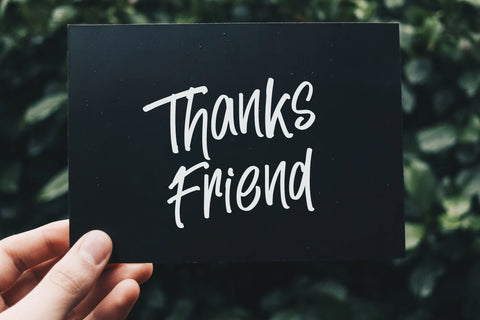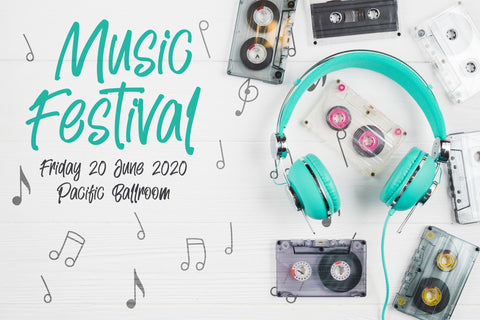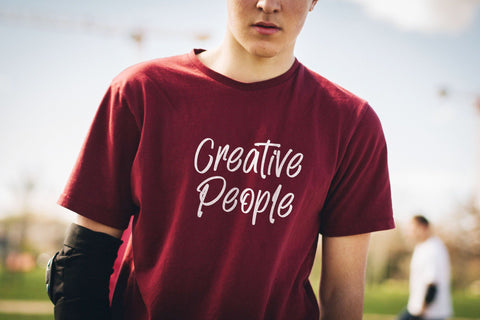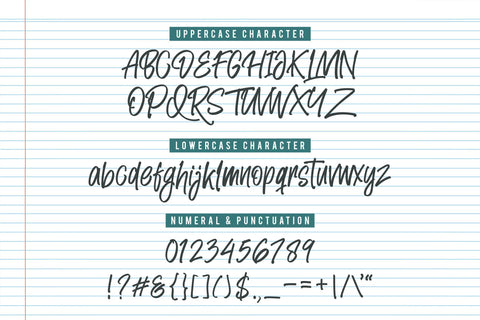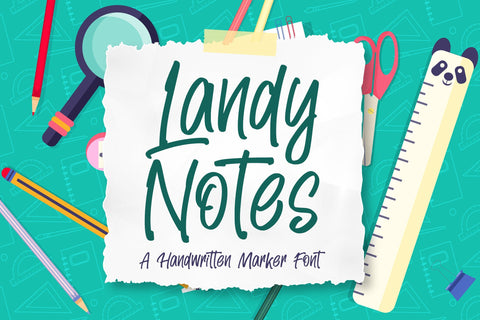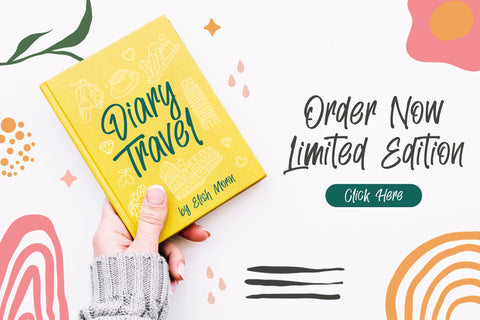
Landy Notes Handwritten Font
Landy Notes is a handwritten font with a natural & stylish flow. This font has a multitude of natural looking ligatures in its OpenType features - making the font look as close to natural handwriting as possible. This collection of scripts is perfect for your branding.
Landy Notes Font is perfect for many different projects such as logos & branding, invitation, stationery, wedding designs, social media posts, advertisements, product packaging, product designs, label, photography, watermark, special events or anything.